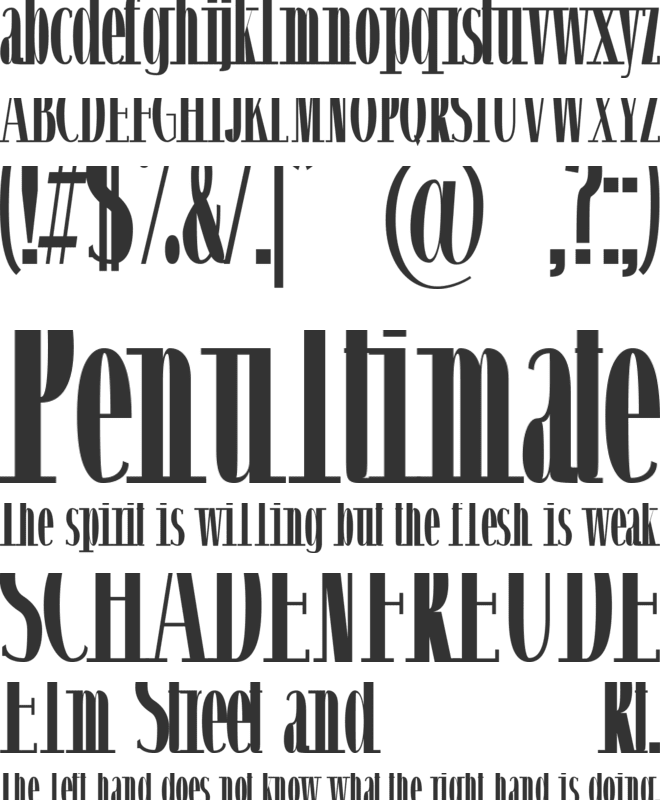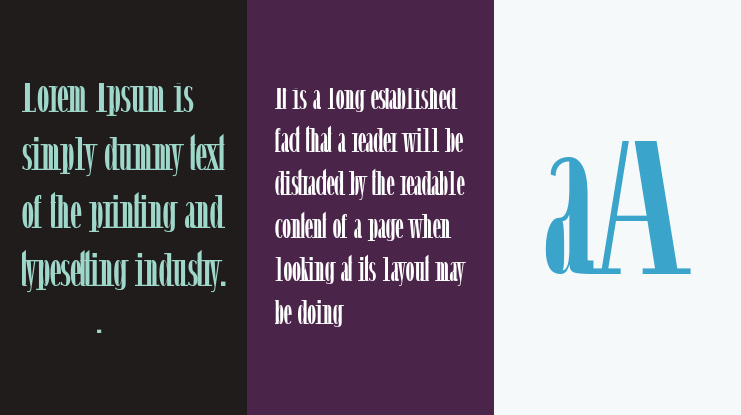
QUEEN Font Family
Queen is a minimalist slab serif with regal elegance and multilingual support—perfect for luxury branding, packaging, and editorial design.
Minialistartstudio